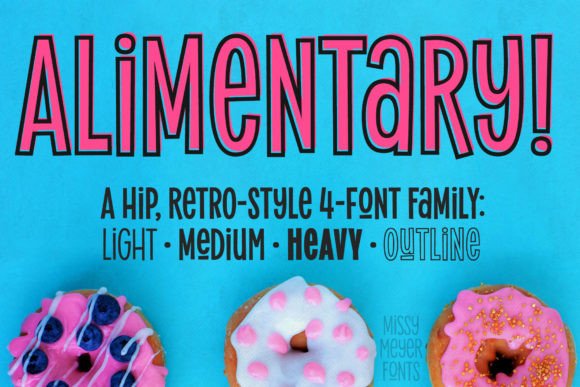
Introducing Alimentary: A Deliciously Versatile Font Family
As a designer, I’ve had my fair share of frustrating font searches. You know, when you’re working on a project, and you just can’t seem to find the perfect typeface? It was one of those moments that led me to create the Alimentary font family. I’m excited to share its story with you, and explore how this tasty font can elevate your designs.
The Design Moment that Inspired Alimentary
I was working on a retro-themed food blog project, and I just couldn’t find a font that captured the right blend of nostalgia and sophistication. I wanted something tall, narrow, and with a hint of playfulness. After scouring font libraries and marketplaces, I decided to take matters into my own hands and create my own font. And so, Alimentary was born!
Meet the Alimentary Family
Alimentary is not just a single font, but a family of four, each with its own unique character. The family includes:
• Alimentary Light
• Alimentary Medium
• Alimentary Heavy
• Alimentary Medium Outline
Each member of the family boasts over 700 glyphs, including:
• Basic Latin characters (A-Z, a-z, 0-9)
• Tons of punctuation
• 330 characters for European language support
• Limited selection of Greek, Coptic, and Cyrillic characters
• Alternates and ligatures for added design variety
• ✨ Retro charm: Alimentary has a distinct nostalgic feel that’s perfect for food, science, or technology-themed designs.
• ✅ Versatility: With four weights and an outline version, you can use Alimentary for a wide range of projects, from headings to body text.
• 💡 OpenType features: Alimentary supports advanced typography features like ligatures, stylistic alternates, and more.
• 🤔 Limited Cyrillic support: While Alimentary does include some Cyrillic characters, the selection is limited.
• ⚠️ Not ideal for body text: Due to its condensed nature, Alimentary might not be the best choice for lengthy body text.
As a designer, I’m always drawn to the intersection of science and art. With Alimentary, I wanted to combine my love of food, science, and typography into a single font family. The result is a unique blend of nostalgia and sophistication that’s perfect for a wide range of design projects.
Q: What inspired you to create Alimentary?
A: I created Alimentary because I couldn’t find a font that captured the perfect blend of nostalgia and sophistication for a retro-themed food blog project.
Q: How many glyphs does Alimentary have?
A: Each member of the Alimentary family boasts over 700 glyphs.
Q: Does Alimentary support OpenType features?
A: Yes, Alimentary supports advanced typography features like ligatures, stylistic alternates, and more.